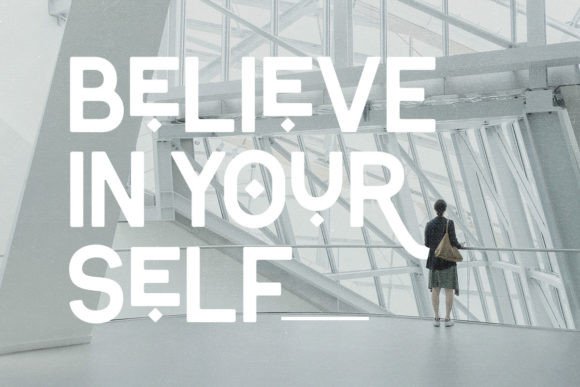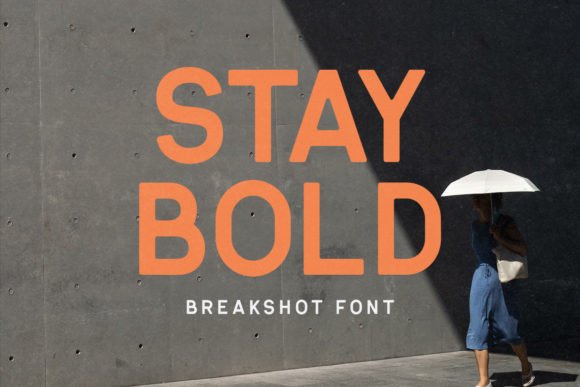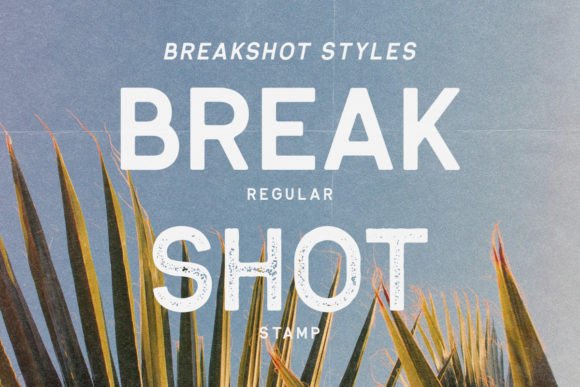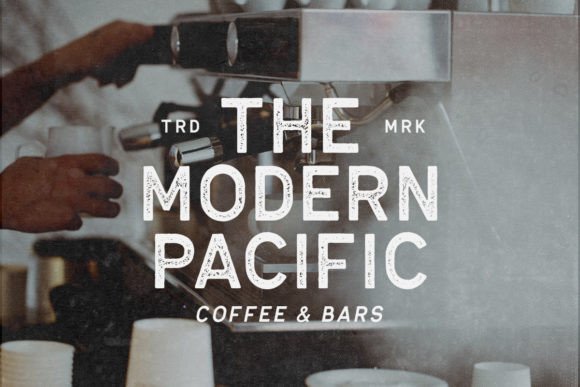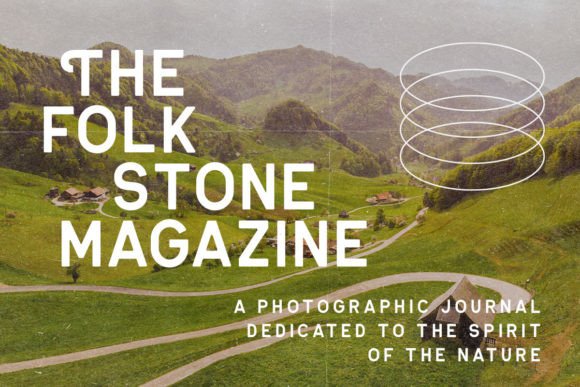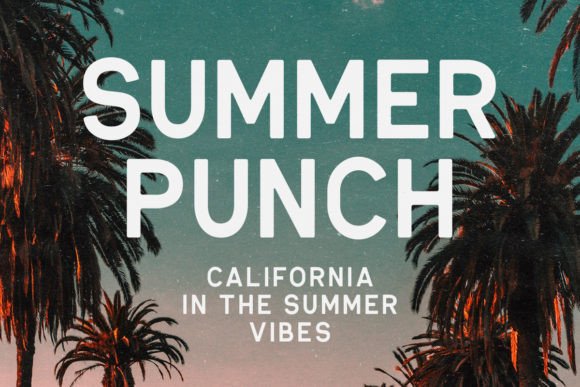
Unlock the Power of Your Creativity with the Break Shot Font
Have you ever stared at a blank page, waiting for inspiration to strike? The blank slate can be daunting, but it’s also a chance to create something truly unique. For designers, this moment is a call to action – a chance to bring their vision to life with the perfect font.
Enter the Break Shot Font, a bold sans serif display font that’s sure to elevate your creations. Whether you’re designing a logo, a brochure, or a website, this font has the potential to be a game-changer. With its clean lines and modern aesthetic, the Break Shot Font is the perfect asset to add to your font library.
So why is the Break Shot Font so valuable for designers? For one, it offers a level of versatility that’s hard to find in other fonts. Whether you’re going for a modern, edgy look or a more classic, timeless feel, the Break Shot Font is up to the task.
Break Shot Font Key Features
- Font Family: Break Shot is a display sans-serif font.
- Size: The font family includes 12 weights, ranging from Light to Heavy.
- Resolution: Optimized for high-resolution displays (Retina, 4K, etc.).
- Unique Characteristics: Break Shot features a geometric, modern design with a unique x-height and subtle rounded edges, making it suitable for headlines and titles.
Break Shot Font Review
I recently had the chance to work with the Break Shot Font, and I must say, it’s been an interesting experience. ✨ One of the things I like about this font is its unique blend of modern and vintage elements. It’s perfect for projects that require a touch of nostalgia but still want to look fresh and contemporary. The font’s versatility makes it a great choice for designers who want to add some personality to their work.
Another aspect of the Break Shot Font that I appreciate is its wide range of character sets. ✨ It comes with a variety of styles, from bold and condensed to light and script. This makes it easy to find the perfect fit for your project, whether you’re designing a logo, a brochure, or a website.
- ⚠️ The font can be a bit overwhelming if used in large blocks of text. It’s best to use it sparingly or in combination with other fonts to avoid visual fatigue.
- ⚠️ Some users may find the font’s vintage elements to be too quirky or distracting. It’s essential to use it in projects where the bold, eclectic style will shine.
Overall, I think the Break Shot Font is a solid choice for designers who want to add some edge to their work. While it may not be perfect for every project, it’s definitely worth considering for those that require a unique and eye-catching font.
Tips for Getting the Most Out of Break Shot Font
Break Shot Font is ideal for designs that require a bold and eye-catching font. Here are some tips to get the most out of it:
- Use it for headings and titles to create a strong visual impact.
- Pair it with a clean and simple font for body text to create a striking contrast.
- Experiment with different font sizes and colors to create a unique and memorable design.
Break Shot Font is commonly used in:
- Logo designs and branding materials.
- Advertising
Alternatives to Break Shot Font
Comparison to Break Shot Font: Great Vibes Font is more refined and polished, while Break Shot Font is more casual and playful. Great Vibes Font is better suited for formal designs, whereas Break Shot Font is better for informal designs.
Alex Brush Font is a beautiful, handwritten script font that can be used for titles, headings, and short paragraphs. It has a more organic and personal feel compared to Break Shot Font. Alex Brush Font is ideal for creative projects, such as wedding invitations, art projects, and personal branding.
Can I customize the Break Shot Font to fit my specific design needs?
While the Break Shot Font is designed to be highly versatile and adaptable, it is not intended to be heavily customized or modified. However, you can use the font’s built-in OpenType features and stylistic sets to create a range of different looks and feels, from subtle variations to more dramatic transformations. If you need to make significant changes to the font, you may need to